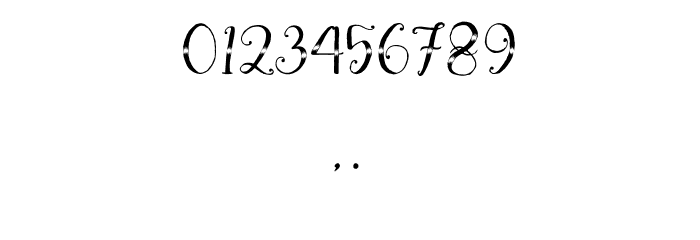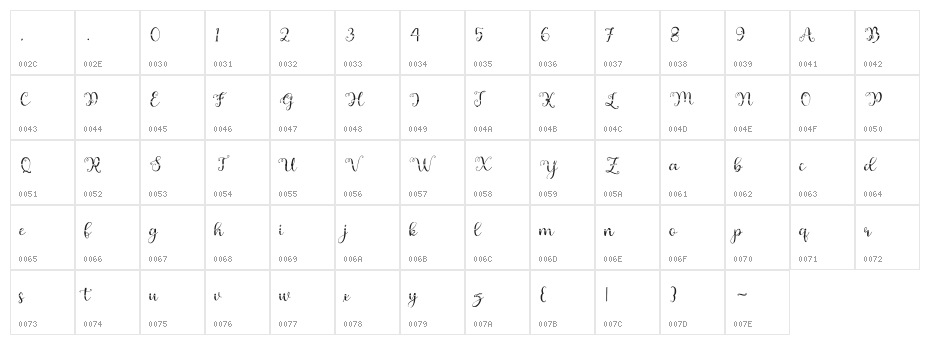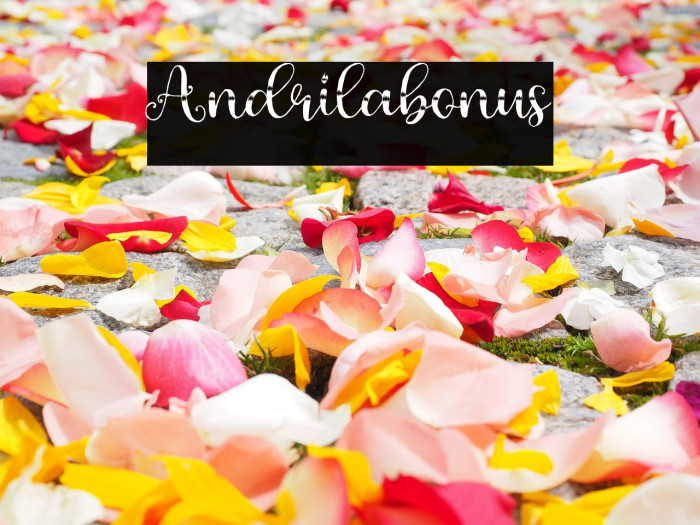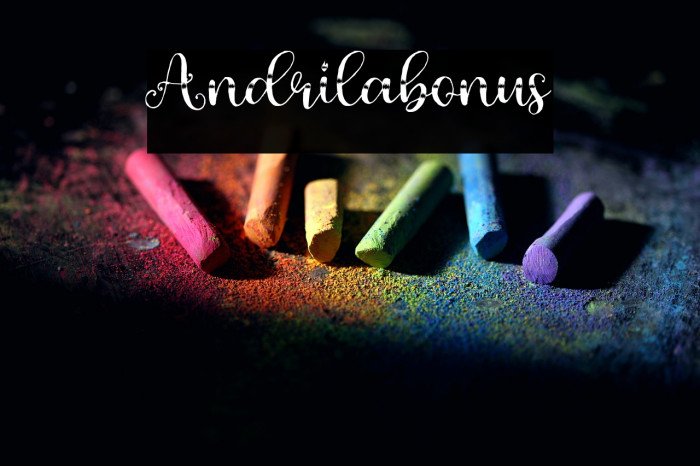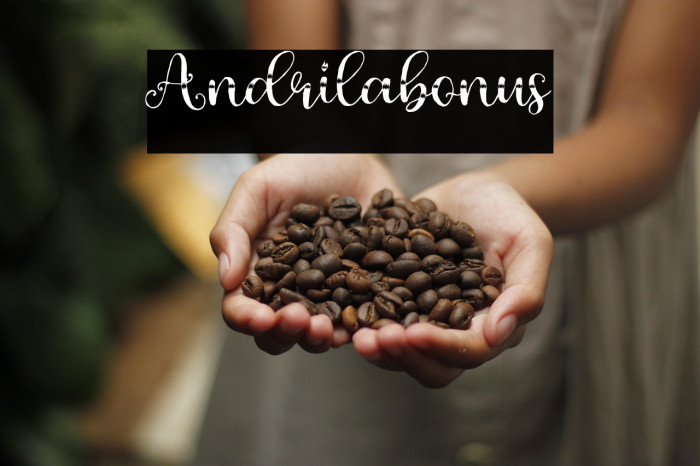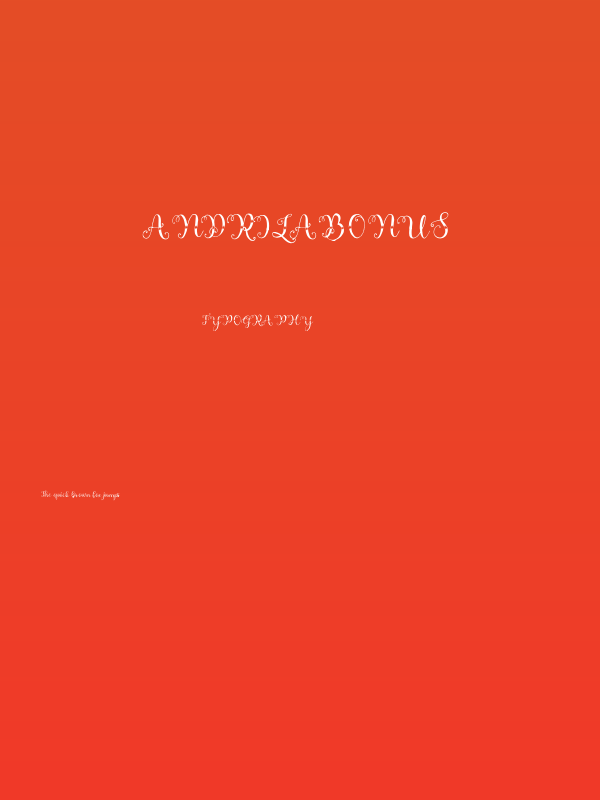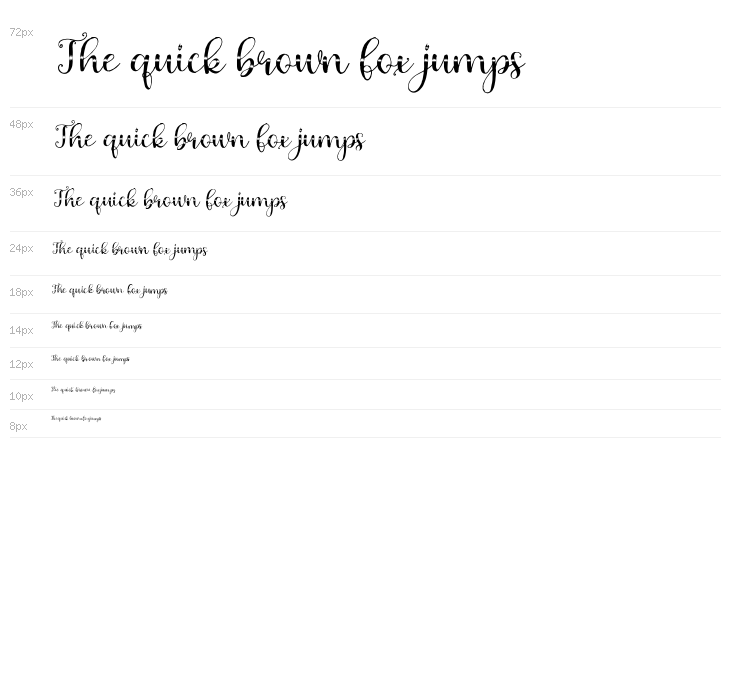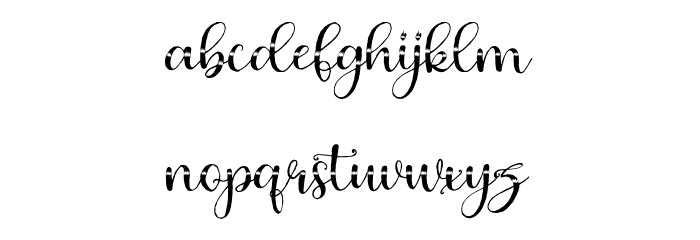
Andrilabonus Font
Andrilabonus Description
This elegant script font features intricate swirls and flourishes, giving it a sophisticated and decorative appearance. The uppercase letters are adorned with elaborate loops and curls, creating a sense of movement and grace. The lowercase letters maintain a consistent style, with gentle curves and a flowing baseline that enhances readability while retaining an artistic flair. The numerals are equally ornate, with unique embellishments that add to the font's overall charm. This font is perfect for projects that require a touch of elegance and creativity.